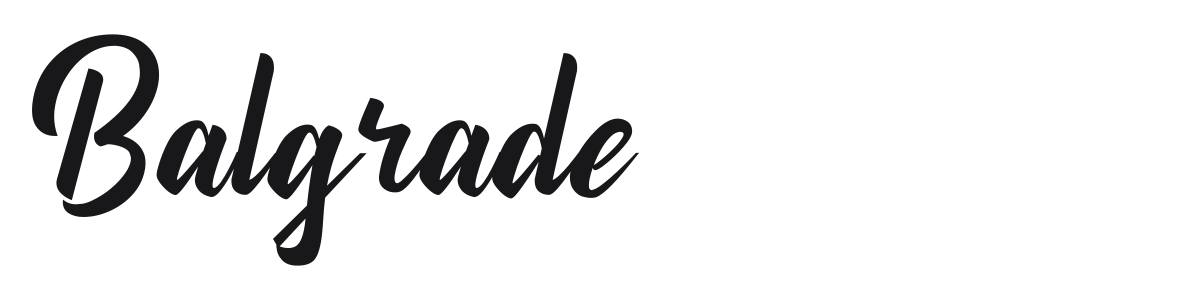
Balgrade
Balgrade is a bold casual brush script with the fluid energy of hand-lettered signage. Thick downstrokes taper into hairline upstrokes with natural variation, and the connected letters carry a spontaneous rhythm that feels genuinely handmade rather than mechanical. It brings warmth and personality to logos, packaging, and editorial headlines.